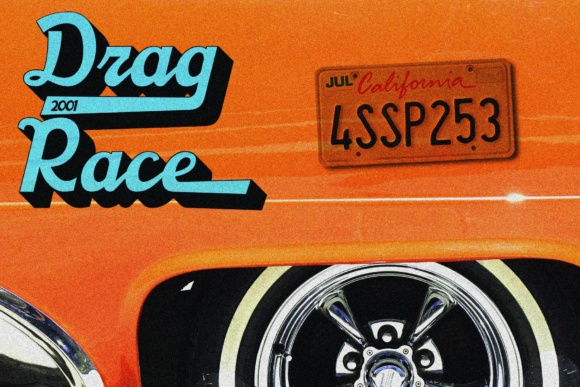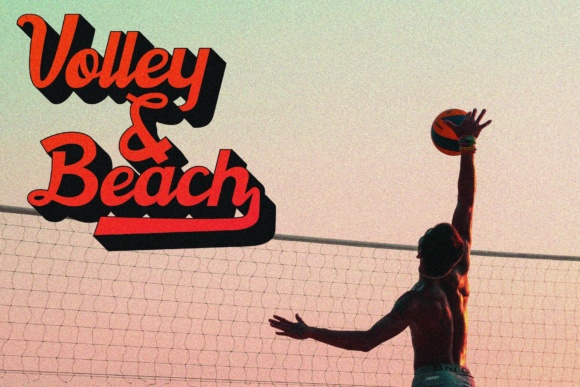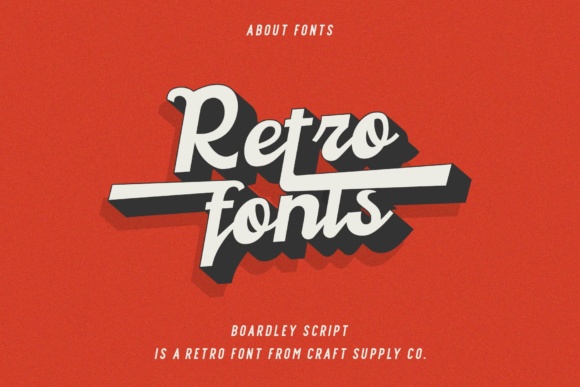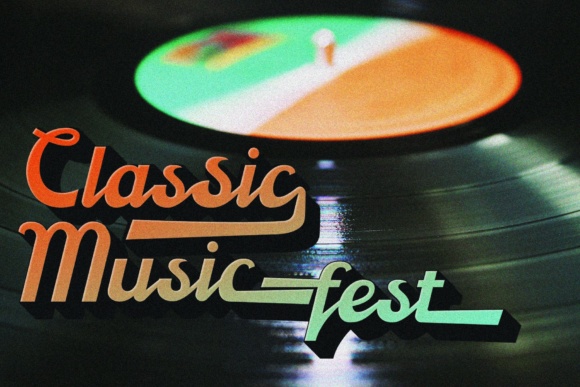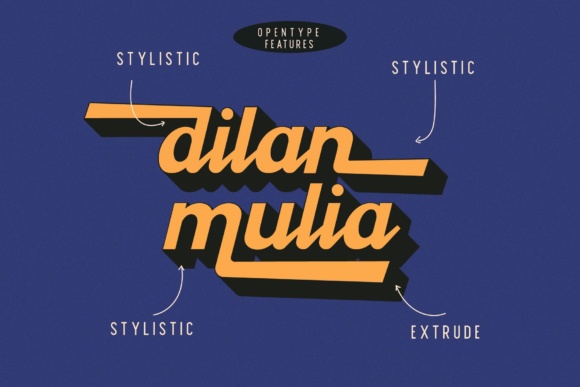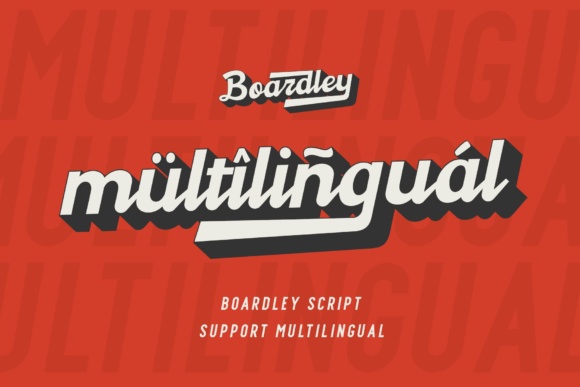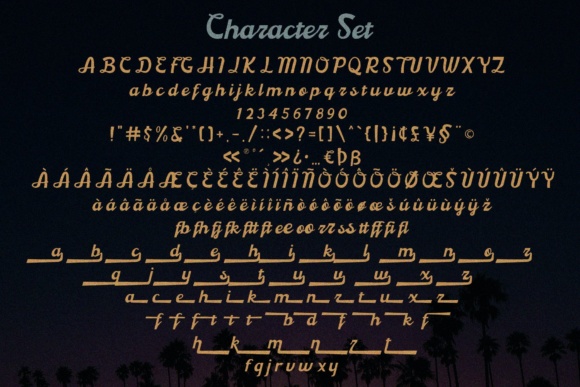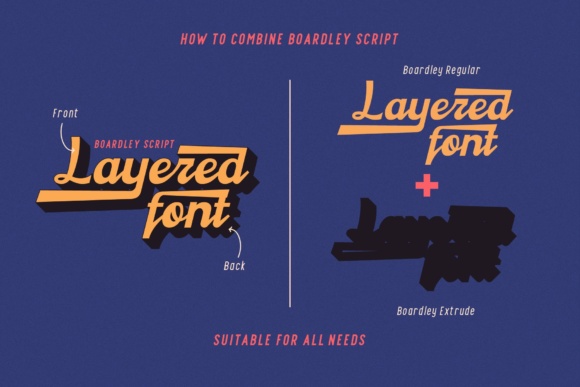
Boardley Script Font
About Boardley Script Font
The Boardley Script is a layered script style font. It features 2 layers that are a result of an exploration of mid-century American and European bold script lettering for advertising.
The result is a very attractive, contemporary font. It was drawn from scratch and vigorous details where added.